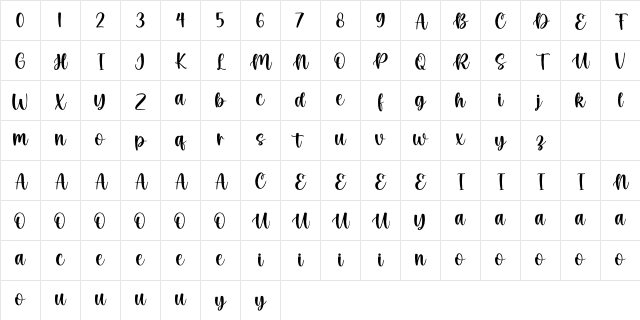
Natural Farmer Regular Free Font
Natural Farmer Regular
Foundry: Graphix Line Studio
Designer: Aldi Raya Pradipta
Complete Natural Farmer Regular glyph index. Displaying only characters natively supported by Natural Farmer Regular font.
Design Context for Natural Farmer
Natural Farmer is a composed and adaptable typeface that performs quietly and consistently across a wide range of design contexts.